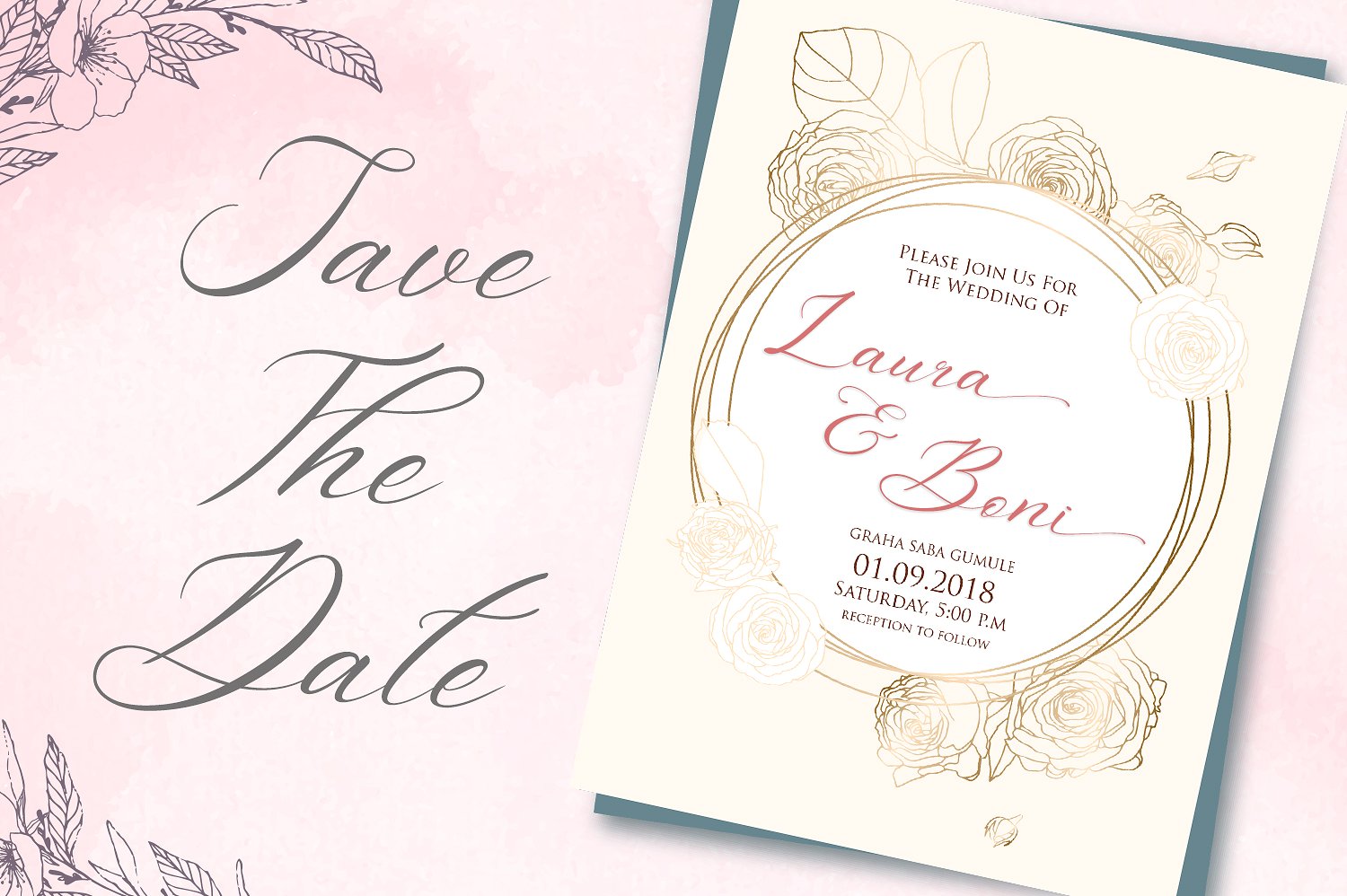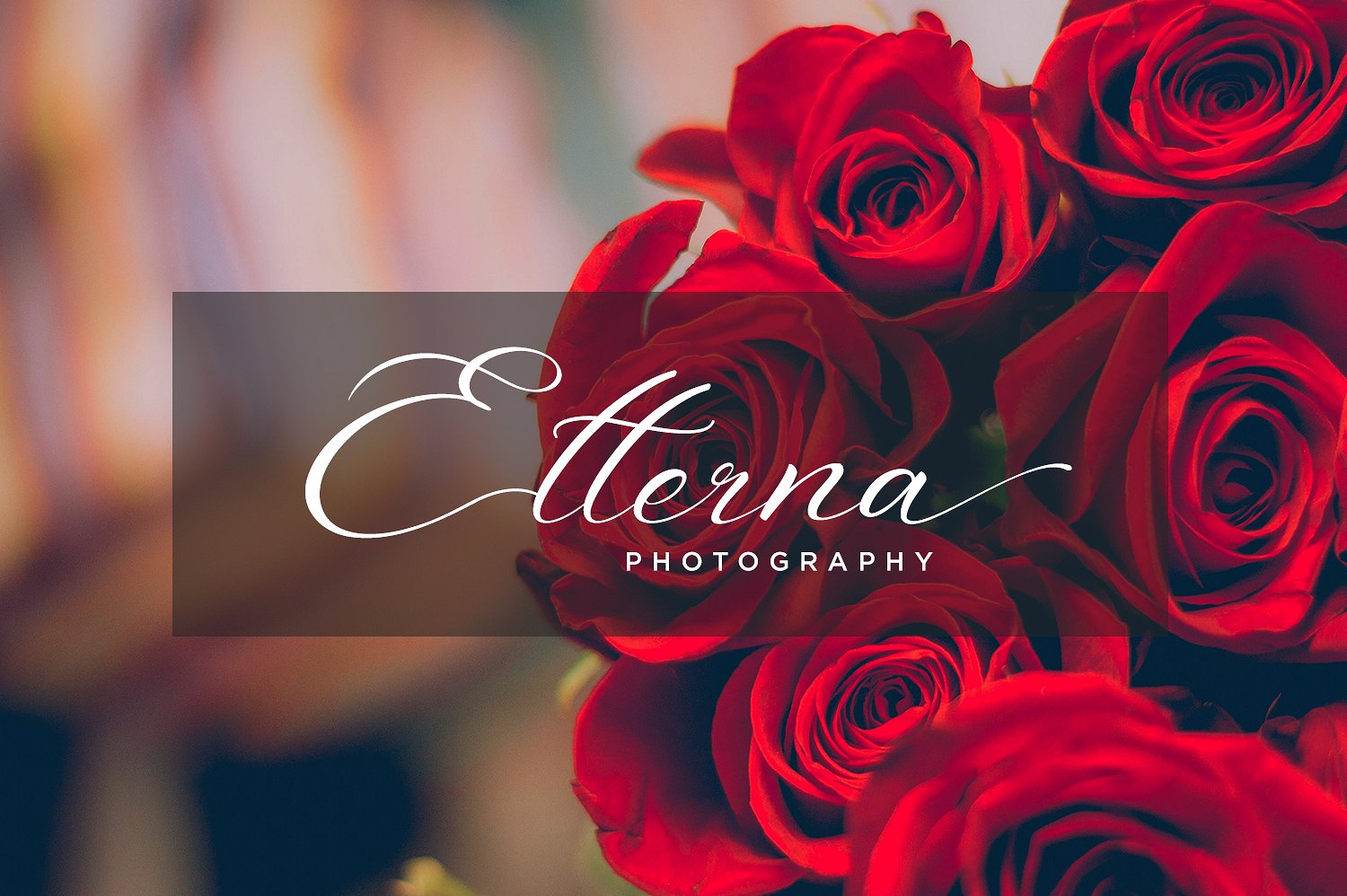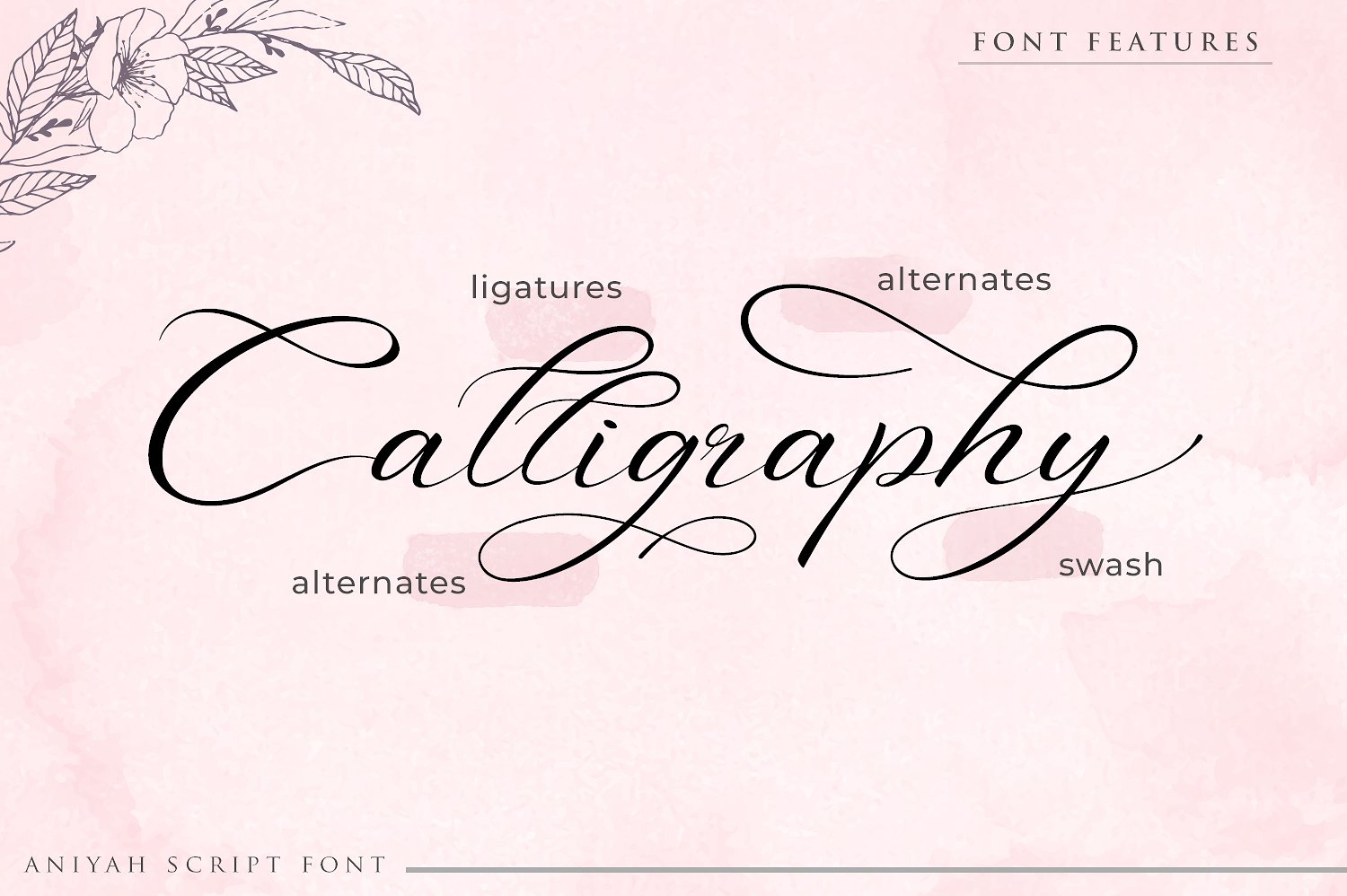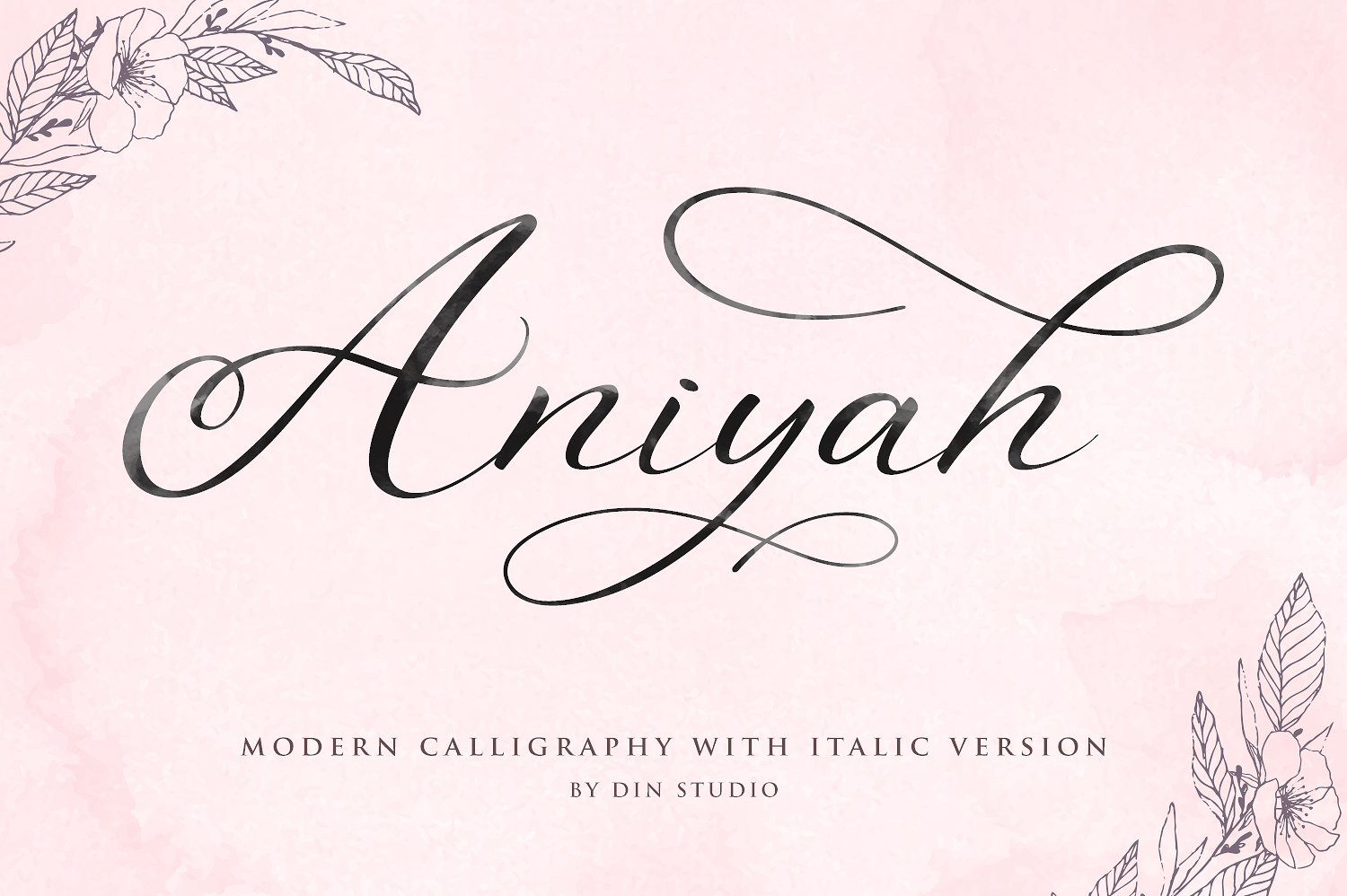
Aniyah Calligraphy Font
A modern calligraphy font with italic version. If you are looking for a calligraphy font, this would be a good choice. Introducing Aniyah Font! It is designed and shared by Din Studio. Aniyah Script – Beautiful Calligraphy. Made with naturally handwritten and modern style. it’s bring beautiful and modern typeface. Very suitable for greeting cards, branding materials, business cards, quotes, posters, and more! This font are perfect for wedding postcard.